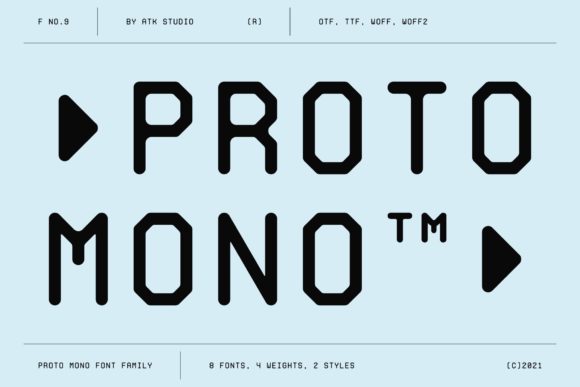
Welcome to the realm of Proto Mono, a groundbreaking tech-monospaced typeface that unleashes a world of possibilities for your creative endeavors. Step into the future with Proto Mono, the font designed to captivate audiences and leave a lasting impression.
With its distinctive ink-trap experiment and diagonal edges, Proto Mono exudes a futuristic charm that will elevate your designs to new heights. Its sharp lines and bold, geometric strokes command attention, making it the perfect choice for tech display posters, informational video displays, captivating ads, and any project that demands a modern, cutting-edge aesthetic.
Explore the boundless creativity of Proto Mono, a font that transcends traditional boundaries. Its unique character set, meticulously crafted with precision, offers a wide range of stylistic alternatives and ligatures, inviting you to unleash your imagination and create designs that stand out from the crowd.
Proto Mono is more than just a font; it's a gateway to a world of innovation and inspiration. Its versatility knows no bounds, effortlessly adapting to a multitude of design applications. From sleek logos and eye-catching headlines to compelling social media posts and engaging website designs, Proto Mono empowers you to make a statement and leave an indelible mark.
Join the ranks of creative pioneers who have embraced the allure of Proto Mono. Let your designs radiate sophistication and innovation as you harness the power of this extraordinary font. Experience the transformative impact of Proto Mono and unlock a world of creative possibilities.